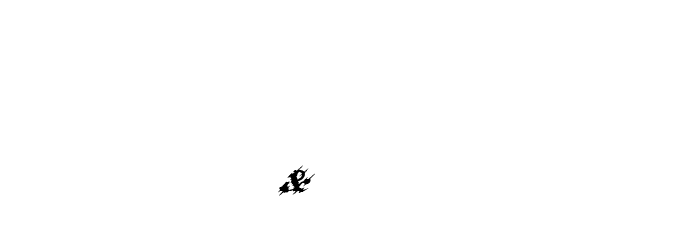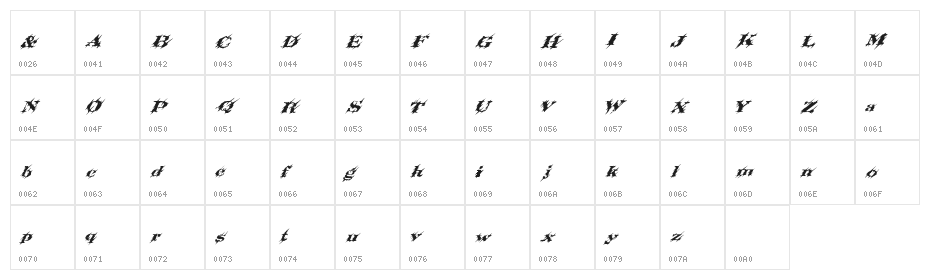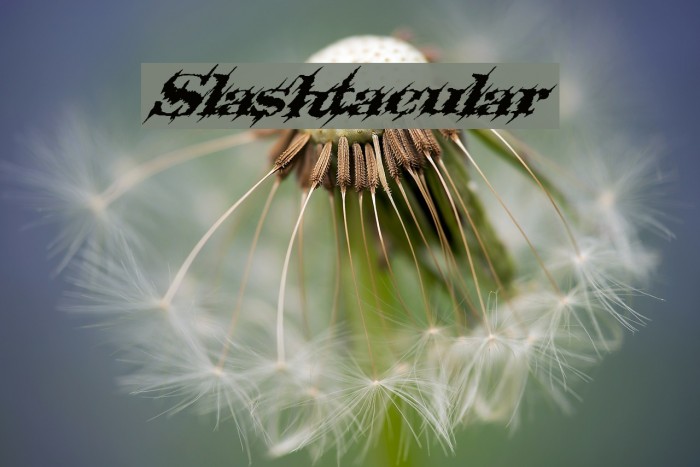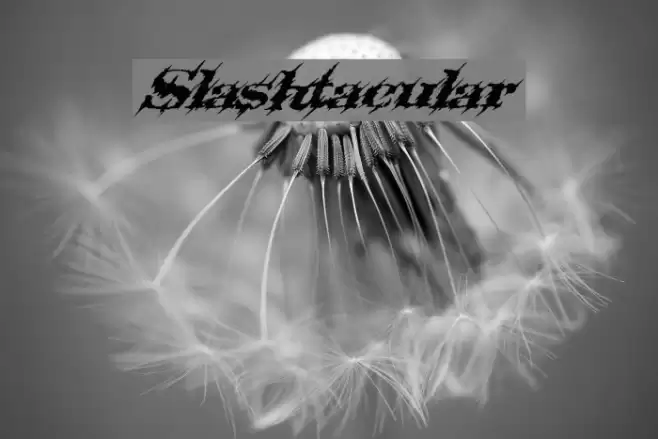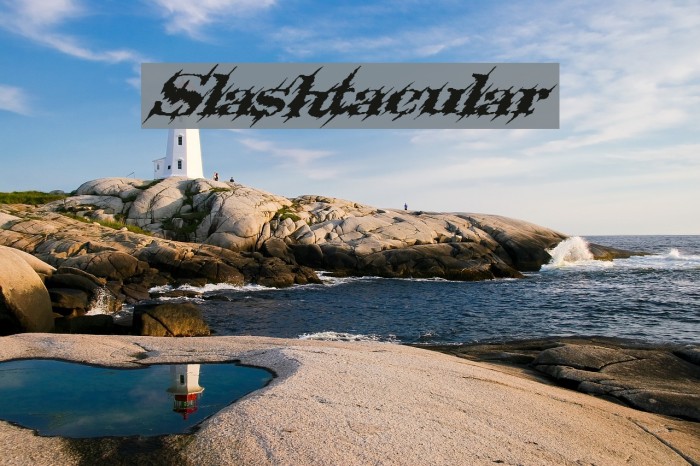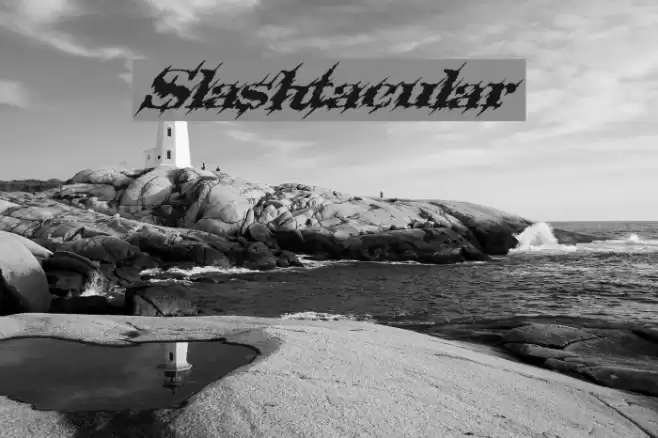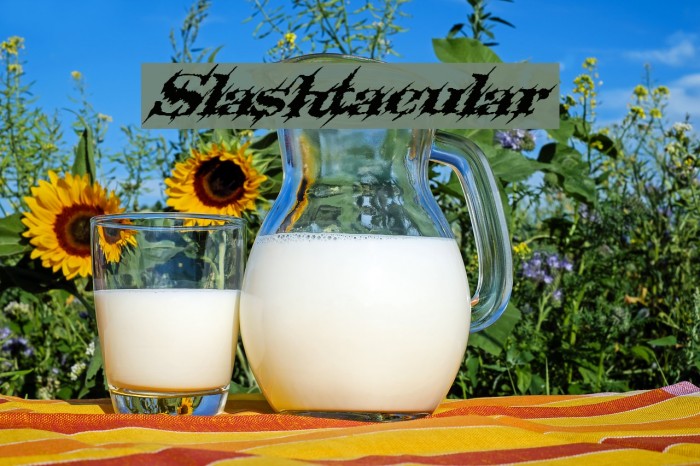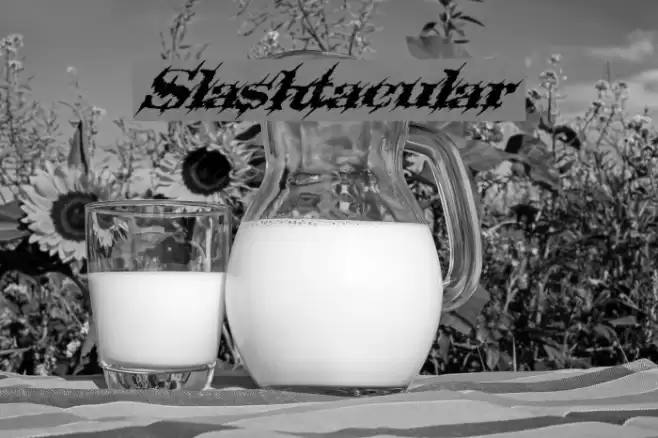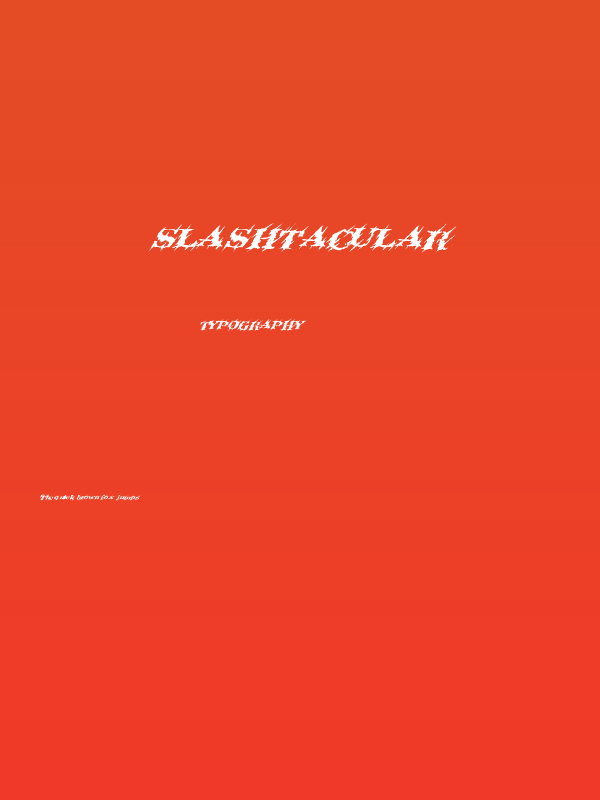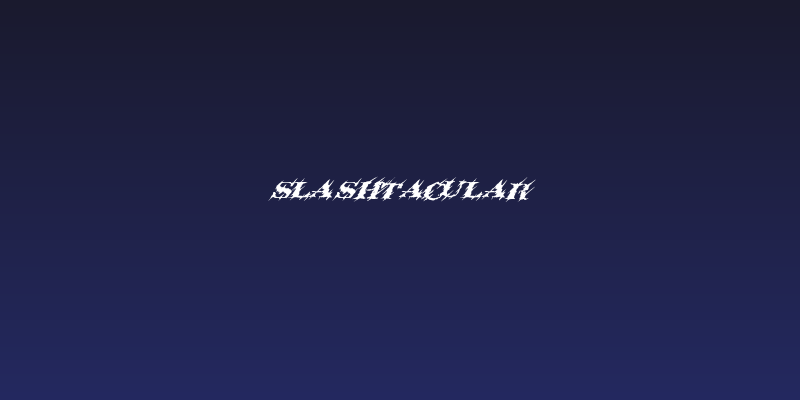
Slashtacular Font
Slashtacular Description
This font features a highly decorative and edgy style, characterized by sharp, jagged edges that give it a dynamic and aggressive appearance. The letters are bold and have a distinct slashed effect, making them stand out with a sense of movement and intensity. The uppercase and lowercase letters maintain a consistent design, with the uppercase being slightly more pronounced. The numbers and special characters follow the same aesthetic, ensuring a cohesive look across all glyphs. This font is ideal for projects that require a bold statement or a dramatic visual impact.
| Proposed Projects | Ideal for music album covers, horror movie posters, edgy branding, and event flyers. |